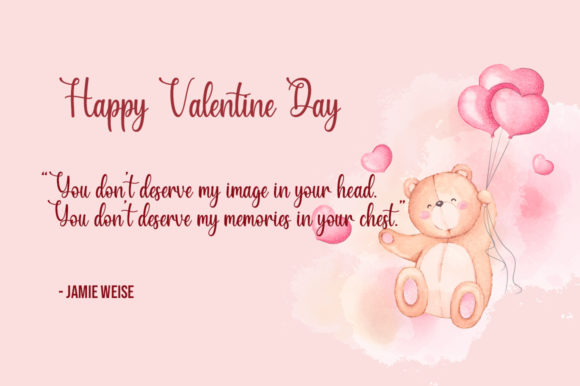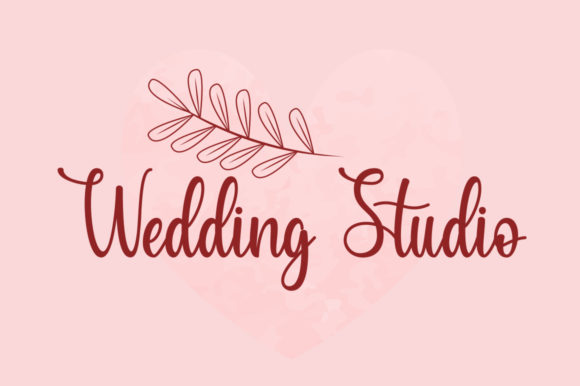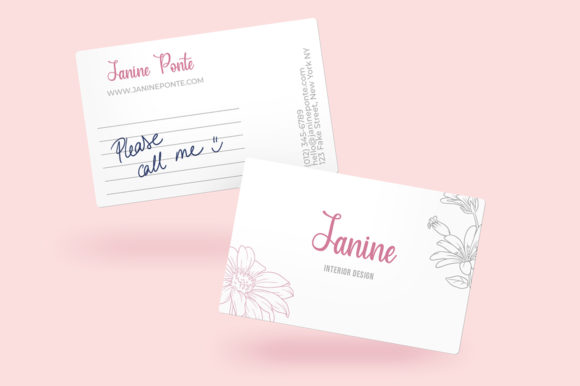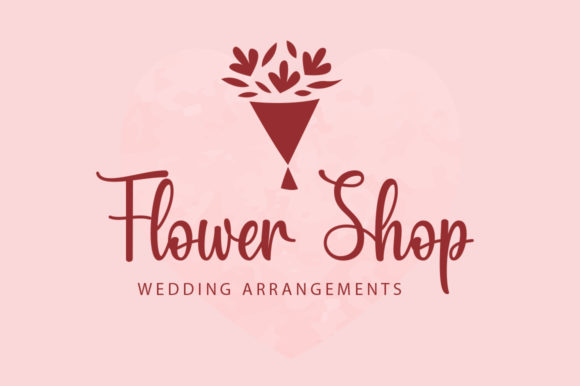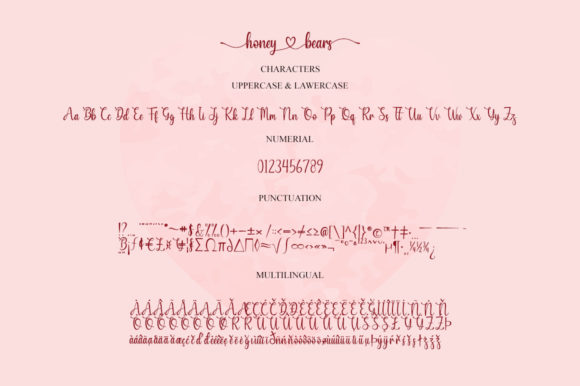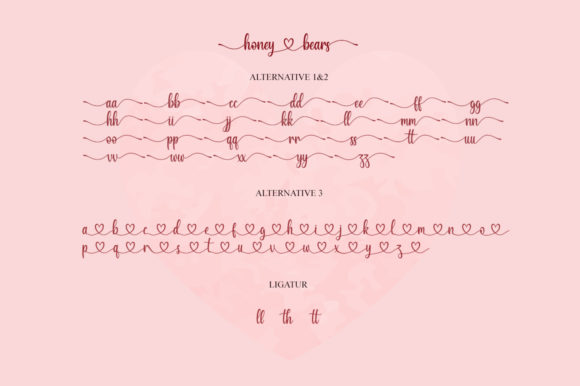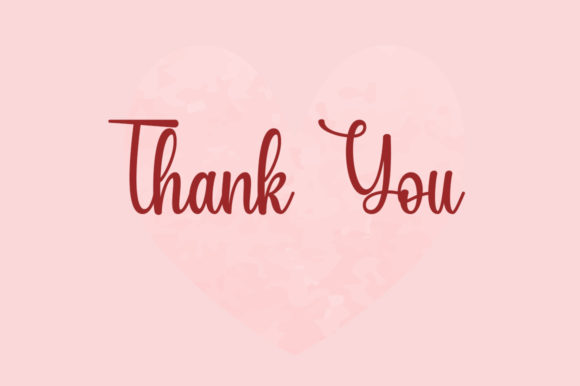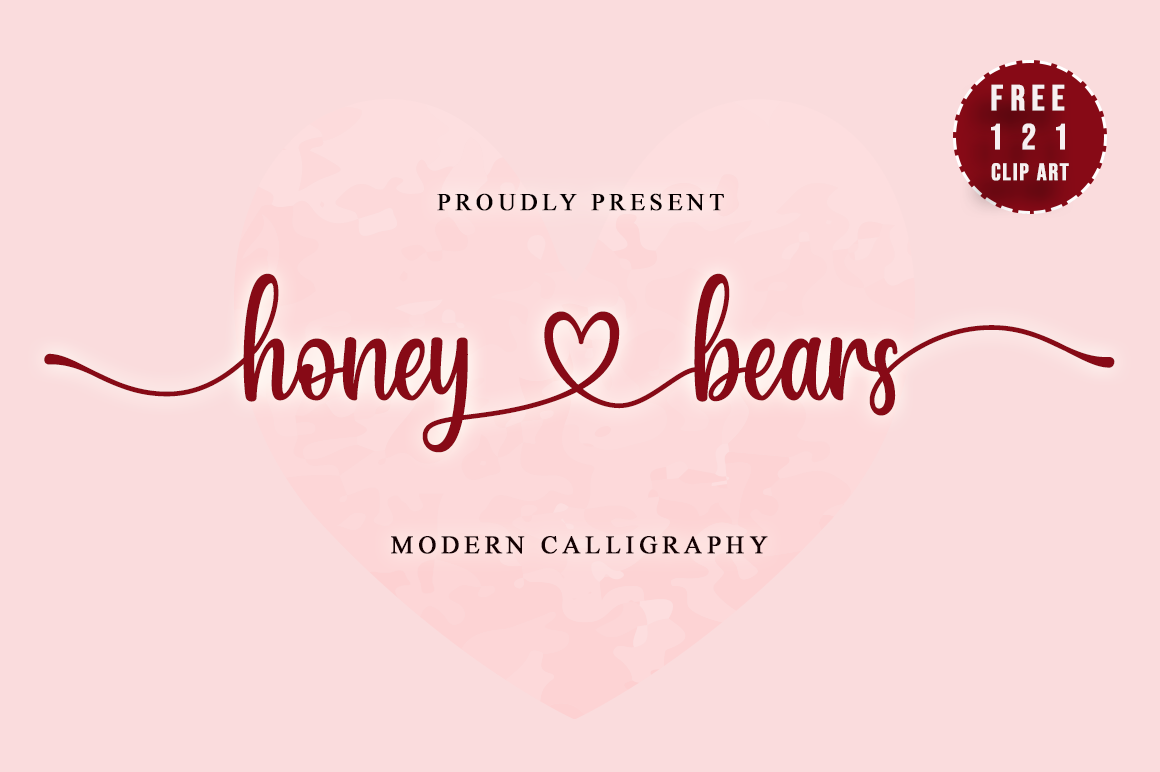
Honey Bears
Looking for a charming handwritten font to add a touch of whimsy and romance to your designs? Look no further than this lovely script font, reminiscent of honey-kissed pages from a vintage journal. With its flowing curves and sweet, gentle strokes, it's perfect for creating warm and inviting designs that exude a sense of nostalgia and charm.
This beautiful font is ideal for use on invitations, thank-you cards, quotes, greeting cards, logos, and business cards, where you want to convey a sense of elegance and sophistication. Its romantic tone makes it particularly well-suited for wedding stationery, anniversary cards, and Valentine's Day designs.
One of the unique features of this font is its PUA-encoded design, which allows you to access all of the glyphs and swashes with ease. This means you can add a touch of extra flair to your designs by using alternate characters, ligatures, and flourishes, giving them an extra layer of personality and charm.
Whether you're looking for a font to add a romantic touch to your branding, or simply want to create some beautiful designs that will make a lasting impression, this lovely handwritten font is sure to delight. With its flowing script and charming character, it's the perfect choice for any design project where you want to convey warmth, elegance, and a sense of joy.